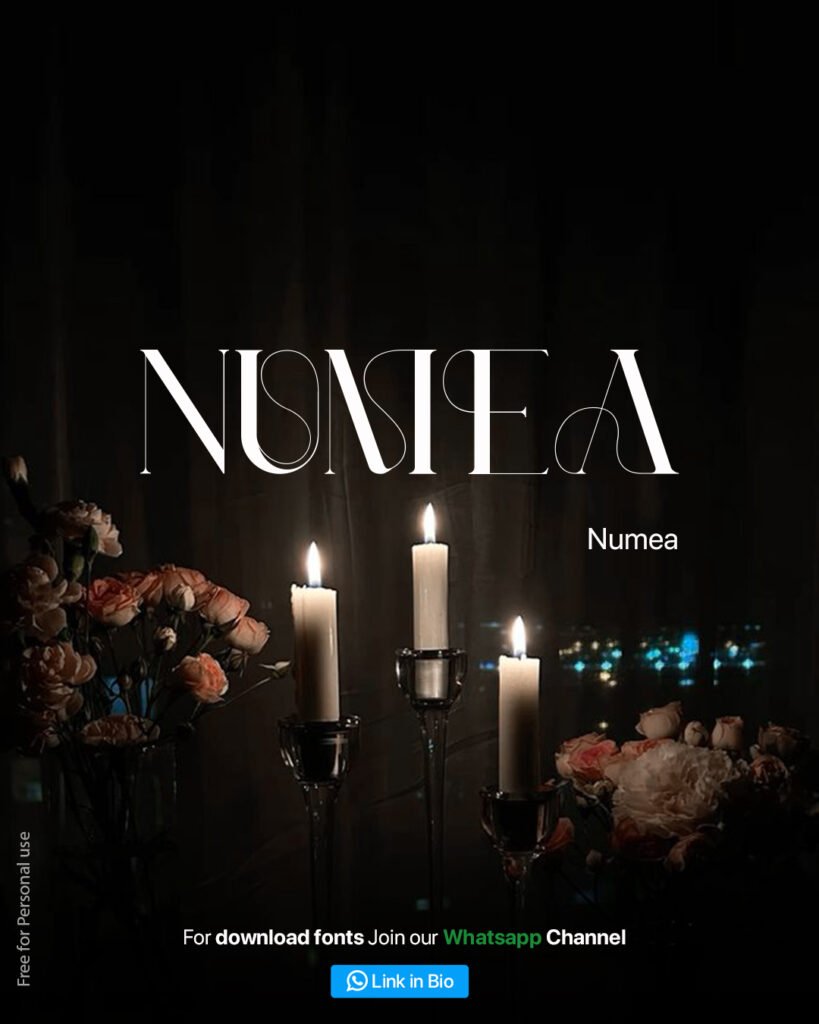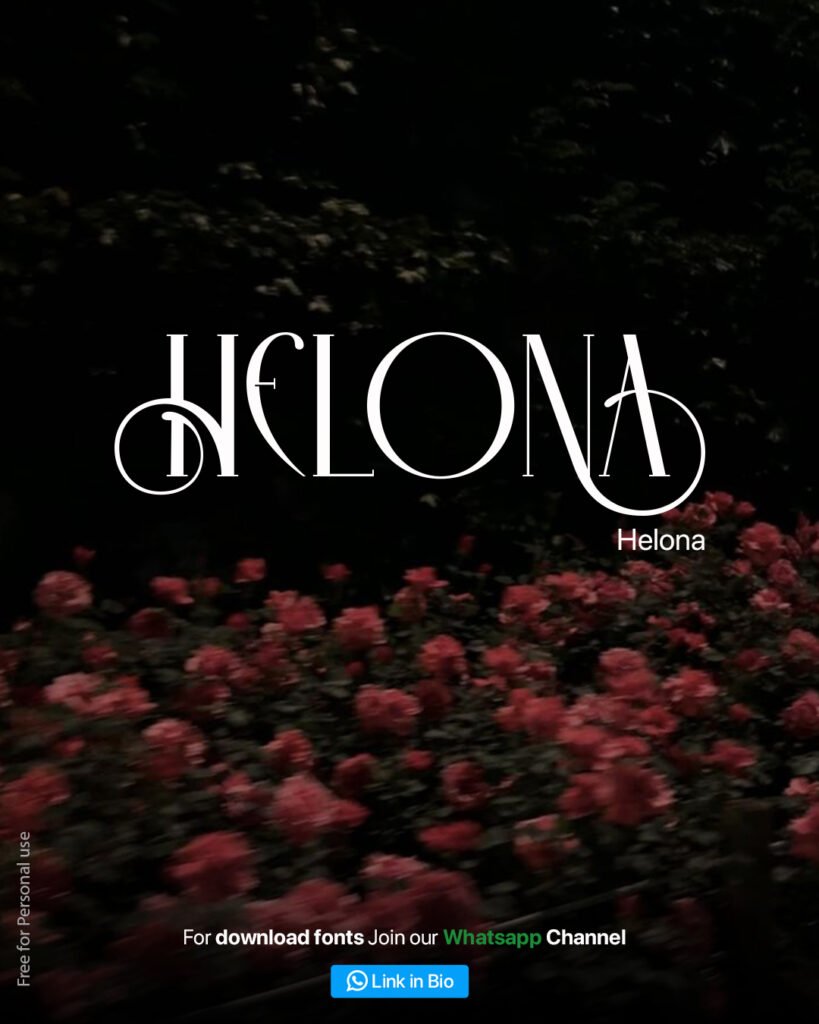
There is something about a beautifully designed font that can change the entire mood of a project. A single typeface choice can make a wedding invitation feel like a love letter, turn a perfume label into something you want to hold just a little longer, or make a simple Instagram post feel like it belongs on the cover of a magazine.
If you have been searching for fonts that carry that soft, romantic, almost cinematic feeling, you are in the right place. In this article I am sharing six handpicked romantic style fonts that have been making waves in the design community lately. These fonts work beautifully for wedding branding, beauty and skincare packaging, boutique fashion, personal portfolios, and any project that needs an emotional, elegant touch.
Each font in this list has its own personality, so I will walk you through where it shines, what kind of projects it suits best, and a few practical tips on how to pair it with other elements in your design.
Let us get into it.
Why Romantic Fonts Matter More Than You Think
Before we jump into the list, it is worth talking about why this style of typography has become so popular, especially in 2025 and 2026.
We are living in a time where digital design is everywhere. Every brand, every creator, every small business has some kind of online presence. With so much visual noise, the brands that stand out are usually the ones that feel human, warm and intentional rather than cold and generic.
Romantic fonts, with their flowing curves, elegant serifs and delicate details, do exactly that. They slow people down. They create a feeling of luxury, care and craftsmanship, even if the product itself is simple. This is why you will see this style of typography showing up everywhere from high end fashion campaigns to small boutique coffee shop menus.
Now let us look at the fonts themselves.
1. Medino
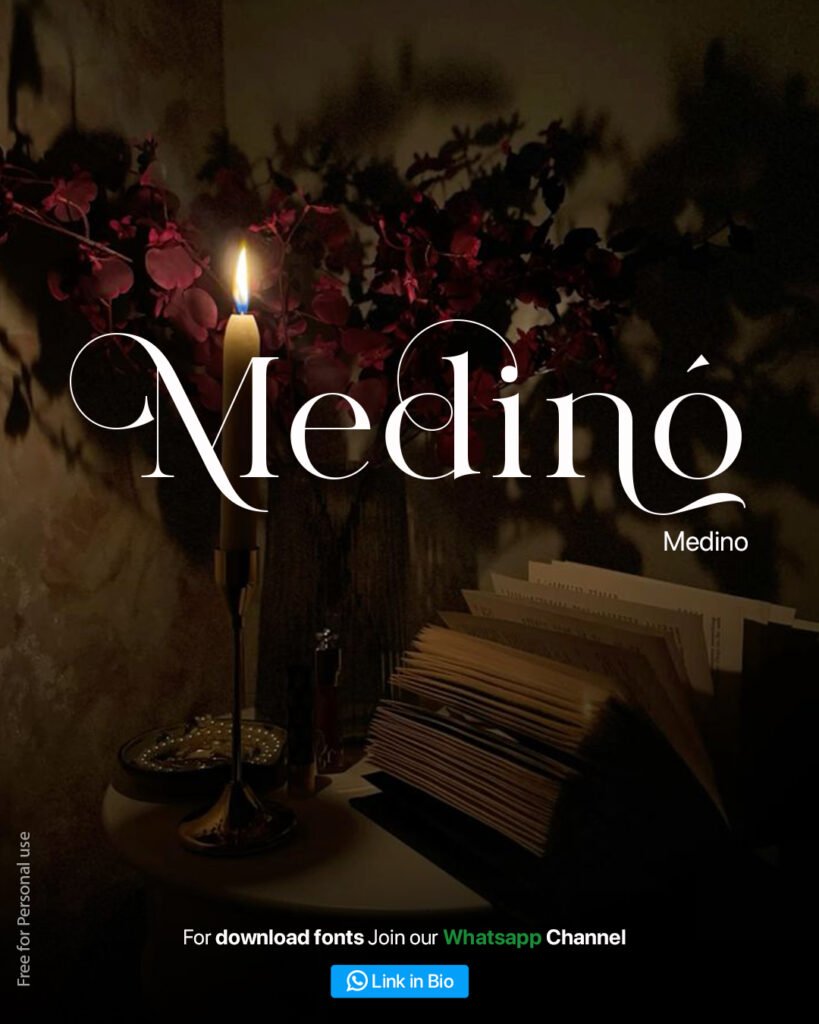
Medino is one of those fonts that feels like it was designed for candlelight. The moment you see it, there is a quiet, intimate energy to the letterforms. The serifs are soft and rounded in places, with elegant swashes that give certain letters, especially the lowercase d and the final letters of a word, a slightly old world charm.
What makes Medino special is the balance it strikes. It is decorative enough to feel special, but the structure underneath is clean and readable, which means you can actually use it in real projects without sacrificing legibility.
Best uses for Medino
Wedding invitations and save the date cards
Perfume and fragrance branding
Boutique hotel signage and menus
Personal blog headers, especially for lifestyle or journal style content
Pairing tip
Because Medino has so much personality on its own, pair it with a simple sans serif for body text. Something clean and minimal will let Medino’s details shine without competing for attention.
2. Aretha
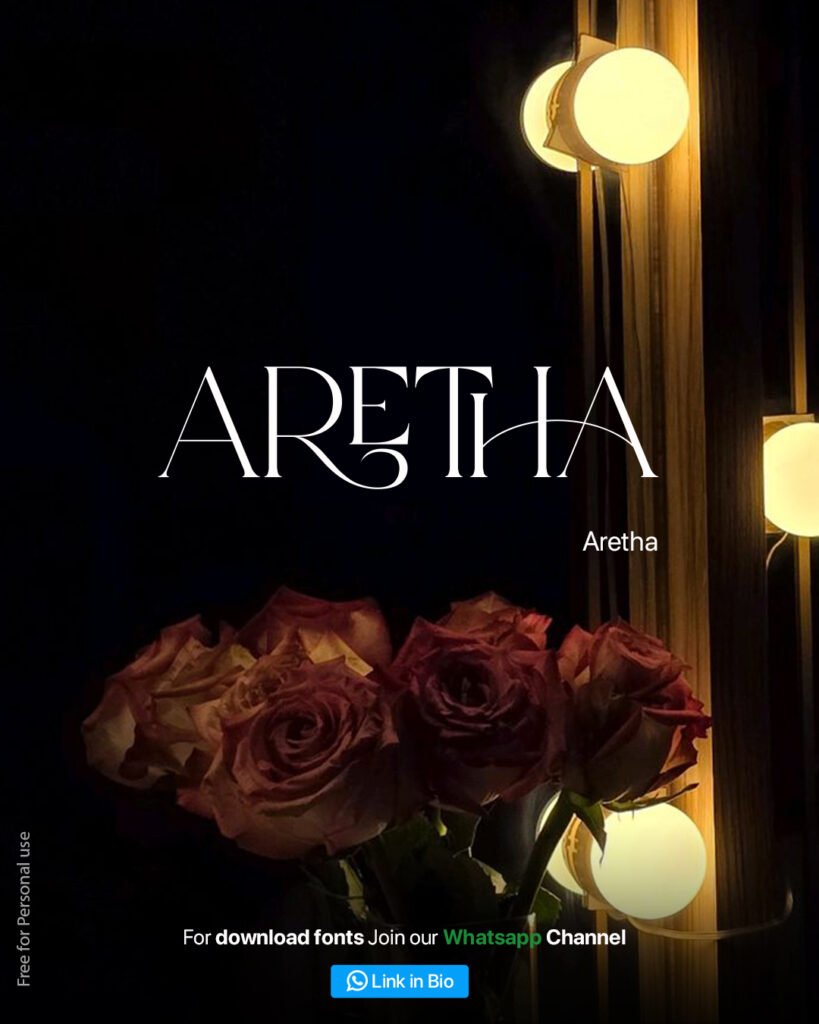
Aretha is bold, confident and a little theatrical, in the best way possible. The uppercase letters are tall and dramatic, with a distinctive ligature where the letters connect in unexpected ways, almost like a signature written by hand but refined into a typeface.
There is a vintage glamour to Aretha that reminds me of old film posters and classic perfume bottles. It has presence. When you use Aretha for a logo or a header, it does not just sit there, it announces itself.
Best uses for Aretha
Fashion and luxury brand logos
Magazine and editorial headers
Event branding for galas, fashion shows or premieres
Cosmetic and beauty product packaging
Pairing tip
Aretha works best when given room to breathe. Avoid placing too much text around it. Let it be the star of the composition, with plenty of negative space and a muted, sophisticated color palette in the background.
3. Utorus
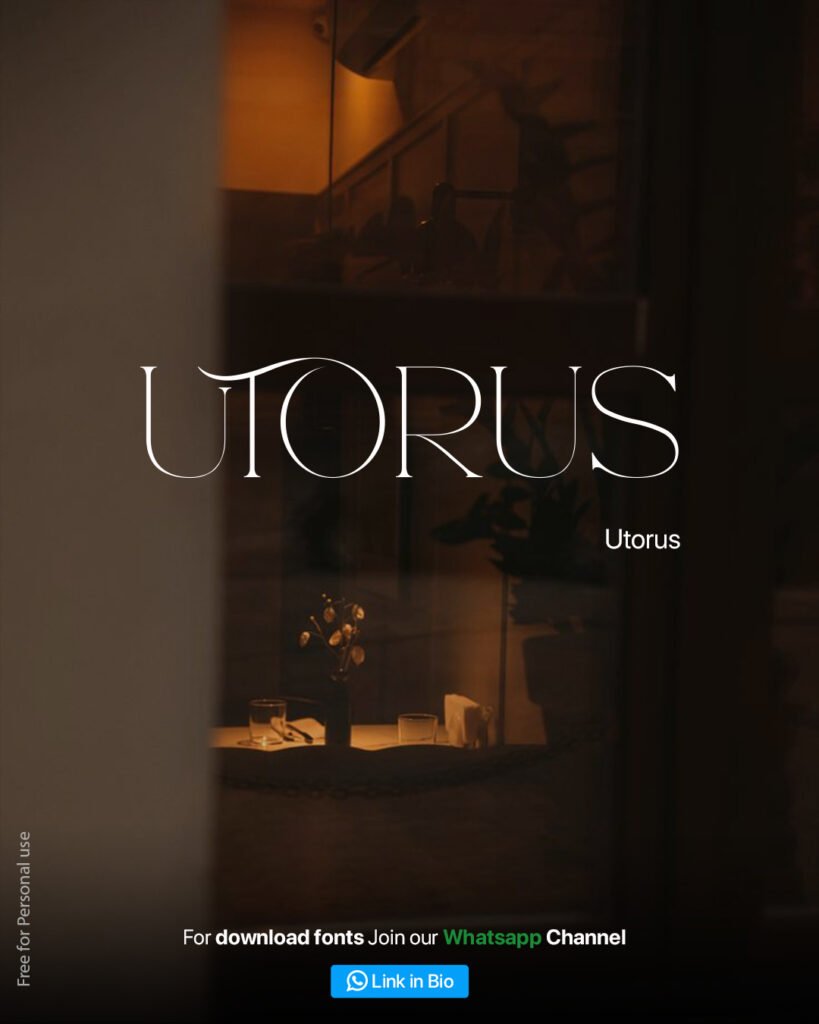
Utorus has a softer, more whimsical feel compared to the others on this list. The letterforms are wide and airy, with thin strokes that almost feel like they were drawn with a fine pen. There is a connected flourish in the uppercase letters that gives it a gentle, flowing rhythm.
This font feels at home in spaces that are calm, minimal and a little dreamy. Think soft lighting, neutral tones, and a sense of quiet luxury rather than loud glamour.
Best uses for Utorus
Restaurant and cafe branding, especially fine dining
Interior design and architecture portfolios
Skincare and wellness brands
Wedding stationery with a minimalist theme
Pairing tip
Since Utorus already has a delicate, open feel, pair it with generous spacing and a soft color palette. Beige, cream, sage green and warm browns complement this font beautifully.
4. Sellendra
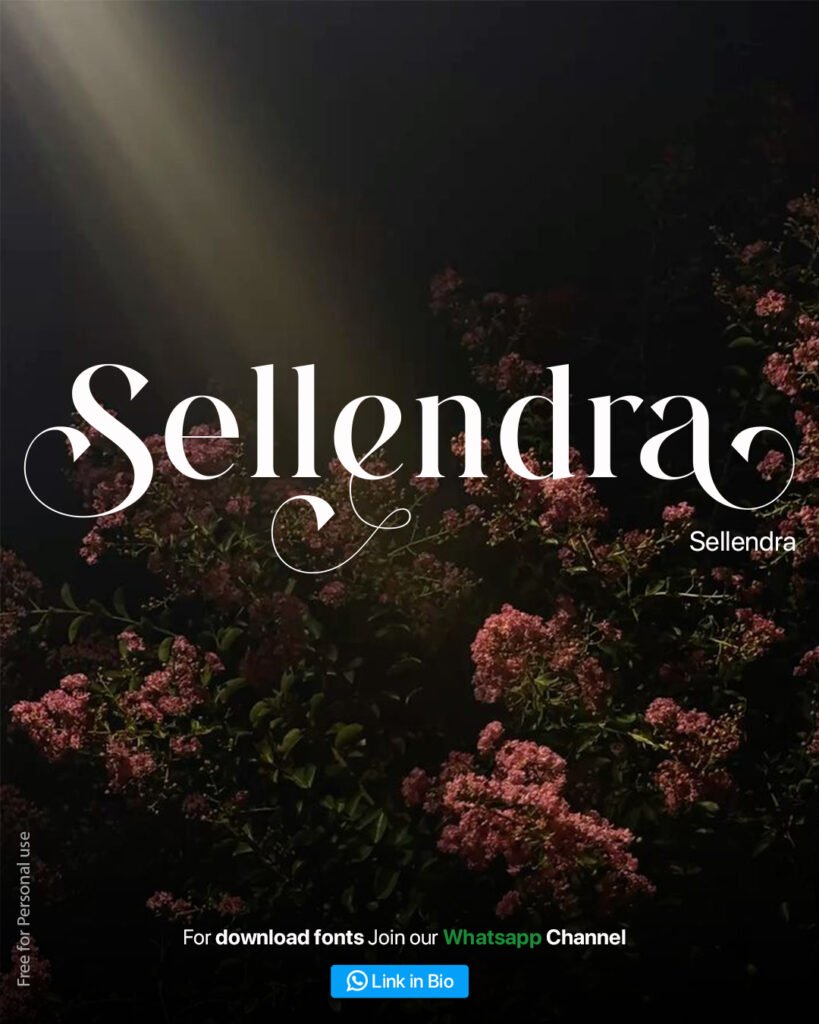
If you want a font that feels like it belongs in a fairy tale, Sellendra is it. This is a script style serif with big, sweeping flourishes, especially on the capital letters. The lowercase letters have a calligraphic quality, almost as if they were written with a brush.
Whether you are designing a wedding invitation, building a beauty brand, working on an editorial layout, or simply want to give your personal portfolio a more refined feel, these six fonts offer a range of romantic, elegant styles to choose from.